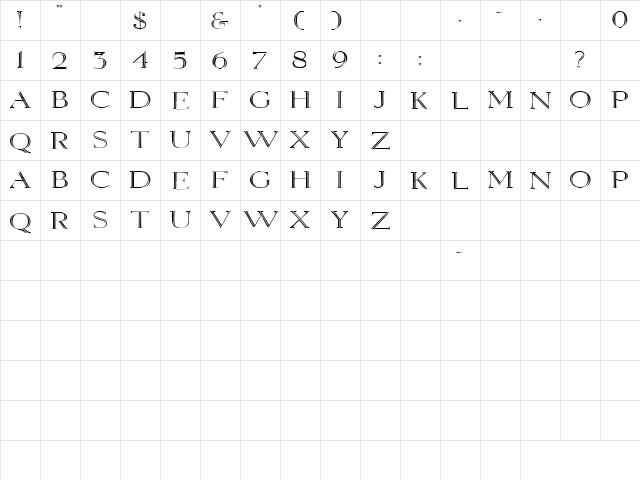
Night In The Ruts 2 Regular
Design Context for Night In The Ruts 2 Typeface
Night In The Ruts 2 is a composed and adaptable typeface that performs quietly and consistently across a wide range of design contexts.